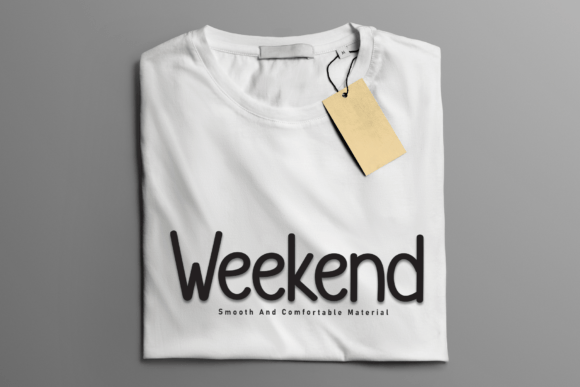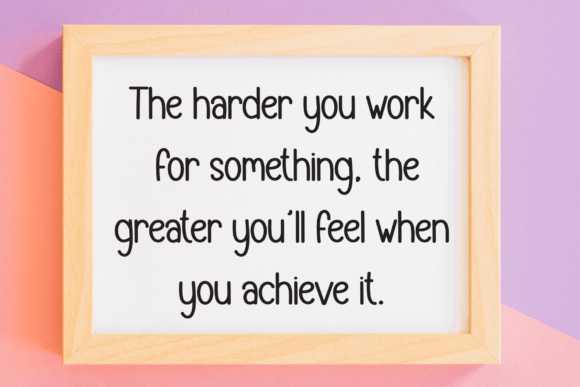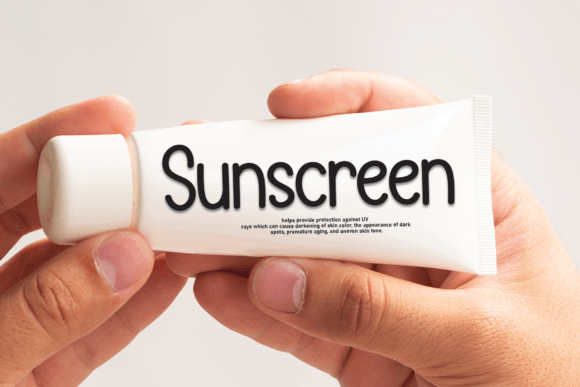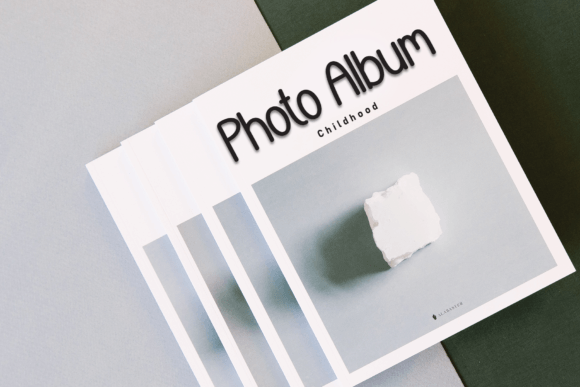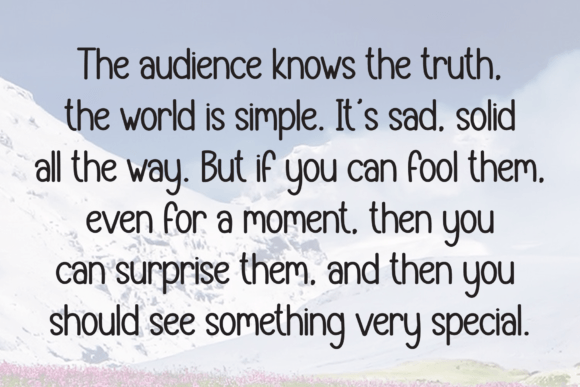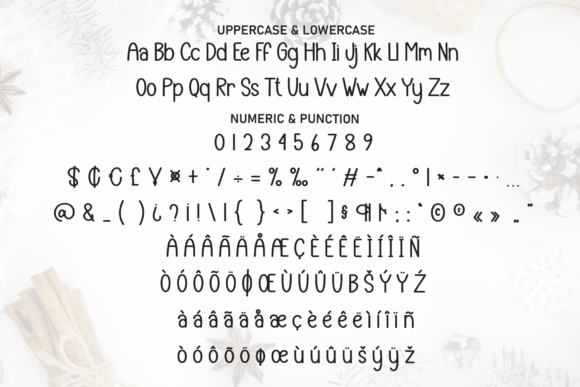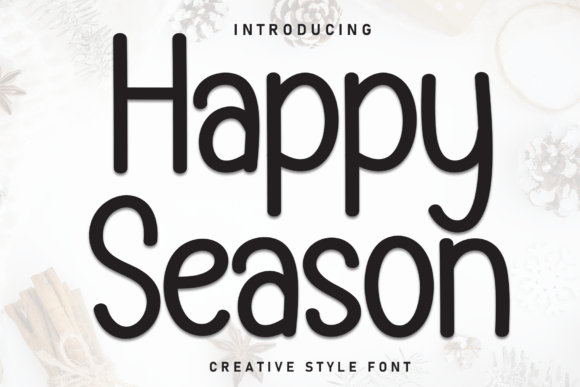
Introducing Happy Season Font: The Perfect Casual Handwritten Style for Your Designs
Are you looking for a font that can add a relaxed and friendly touch to your designs? Look no further than Happy Season Font! This casual handwritten font is designed to capture the essence of a carefree and effortless vibe, making it perfect for personal projects, social media, and invitations. In this article, we’ll dive into the features and benefits of Happy Season Font and explore how it can elevate your designs.
The Characteristics of Happy Season Font
Happy Season Font is a beautifully crafted handwritten font that boasts natural, flowing strokes. Its casual and relaxed style gives it a charming and approachable feel, making it perfect for designs that require a personal touch. The font’s easygoing style adds warmth and authenticity, making it an excellent choice for designers and crafters who want to create engaging and relatable content.
What Makes Happy Season Font Special?
So, what sets Happy Season Font apart from other fonts? Here are a few key features that make it a standout:
• Natural and Flowing Strokes: Happy Season Font features beautiful, handwritten strokes that give it a natural and effortless feel.
• Casual and Relaxed Style: The font’s casual style makes it perfect for personal projects, social media, and invitations.
• Warmth and Authenticity: Happy Season Font adds a touch of warmth and authenticity to any design, making it perfect for creating engaging and relatable content.
• Easy to Read: The font is clear and easy to read, making it perfect for body text and captions.
How to Use Happy Season Font in Your Designs
Happy Season Font is a versatile font that can be used in a variety of design applications. Here are a few ideas to get you started:
• Personal Projects: Use Happy Season Font to add a personal touch to your personal projects, such as photo albums, scrapbooking, and journaling.
• Social Media: Add a relaxed and friendly touch to your social media posts and stories with Happy Season Font.
• Invitations: Use Happy Season Font to create beautiful and inviting invitations for parties, weddings, and other special events.
• Branding: Happy Season Font can also be used for branding and packaging design, adding a touch of warmth and authenticity to your brand.
Tips for Getting the Most Out of Happy Season Font
Here are a few tips for getting the most out of Happy Season Font:
• Experiment with Different Sizes: Happy Season Font looks great in a variety of sizes, from small captions to large headings.
• Pair it with Other Fonts: Try pairing Happy Season Font with other fonts to create a unique and interesting contrast.
• Use it for Body Text: Happy Season Font is clear and easy to read, making it perfect for body text and paragraphs.
In conclusion, Happy Season Font is a beautiful and versatile font that can add a relaxed and friendly touch to any design. Its natural, flowing strokes and casual style make it perfect for personal projects, social media, and invitations. With its warmth and authenticity, Happy Season Font is sure to become a favorite among designers and crafters. So why not give it a try and see how it can elevate your designs?
Whether you’re a seasoned designer or a crafty DIY enthusiast, Happy Season Font is a great addition to your font collection. Its ease of use and versatility make it perfect for a wide range of design applications. So go ahead, get creative, and see what amazing designs you can create with Happy Season Font!